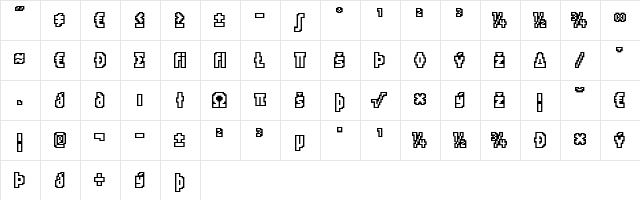
ScreenLogger Medium Font Preview
ScreenLogger Medium
ScreenLogger Medium Font Details
| Foundry | eBoy: Steffen Sauerteig, Kai Vermehr, . Published by FontShop International. FontFont Release |
Design Context for ScreenLogger Typeface
ScreenLogger is a composed and adaptable typeface that performs quietly and consistently across a wide range of design contexts.